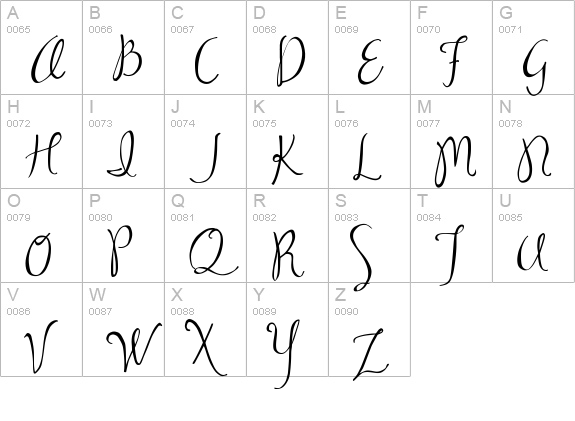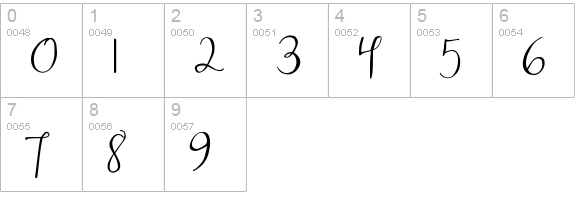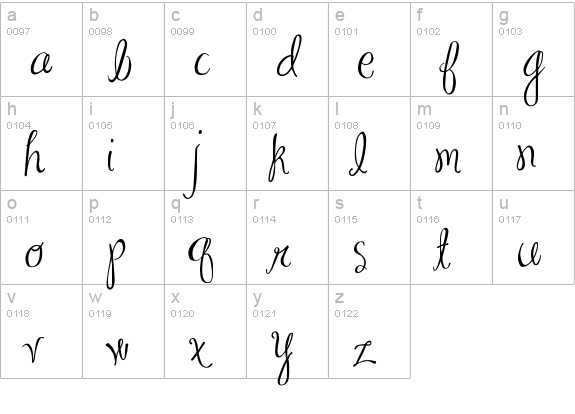
MA Sexy Font Details
Introducing MA Sexy, a seductive and sophisticated font that is sure to captivate your audience. This font exudes an irresistible allure with its sleek and curvaceous letterforms, making it perfect for adding a touch of sensuality to any design project. What sets MA Sexy apart is not only its striking aesthetics but also its accessibility. This font is available for free download at FontsMarket.com, allowing designers, creatives, and enthusiasts alike to effortlessly incorporate its alluring charm into their work. Whether you're designing a romantic wedding invitation, a captivating book cover, or an eye-catching advertisement, MA Sexy is the typeface that will effortlessly turn heads and evoke emotions. Its elegant curves and delicate details add a touch of class and sophistication, making it the go-to choice for projects that require a touch of sensuality. With its extensive character set, MA Sexy offers versatility and flexibility, ensuring that you can achieve the desired look and feel for your designs. The font effortlessly combines elegance with readability, ensuring that your message is delivered flawlessly while leaving a lasting impression. Don't miss out on the opportunity to elevate your designs with the alluring beauty of MA Sexy. Download this font for free at FontsMarket.com and unleash your creativity. Embrace the captivating power of MA Sexy and let your designs exude an irresistible charm that leaves a lasting impression.